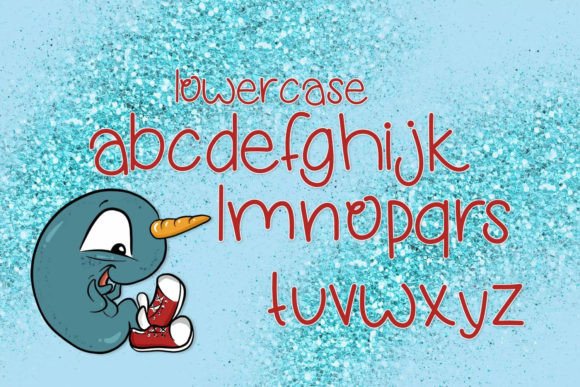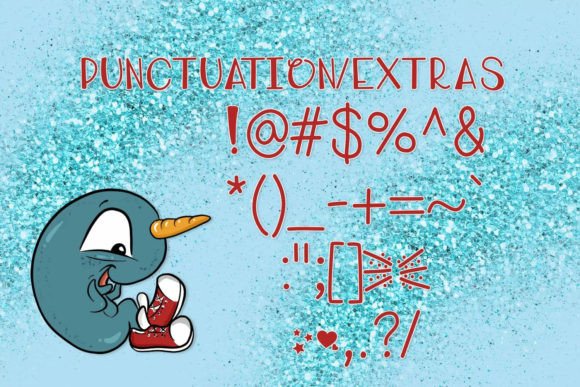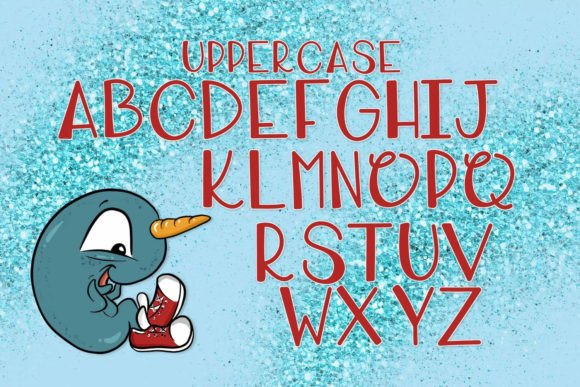
Introduction to Narwhal Shoes Font
Introducing Narwhal Shoes, a fun handwritten font with a little extra flair.
Use the included swashes and glyphs to create fun accents for your project, making the design really pop Narwhal Shoes works great with cutting machines and will look awesome on your next project.
Why Choose Narwhal Shoes Font?
Narwhal Shoes Font offers exceptional quality and versatility, making it a valuable addition to your design toolkit. Whether you’re creating for personal projects or commercial use, Narwhal Shoes Font delivers professional results.